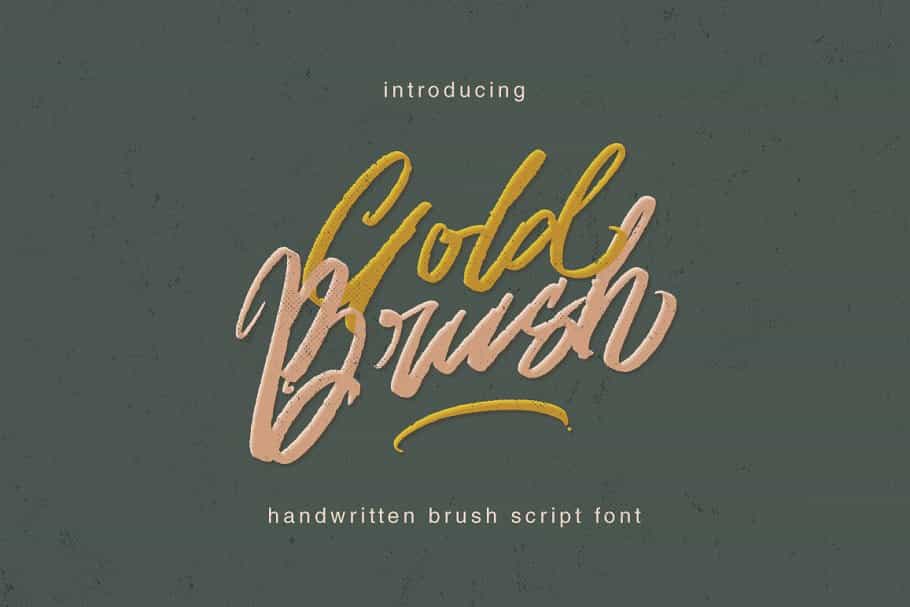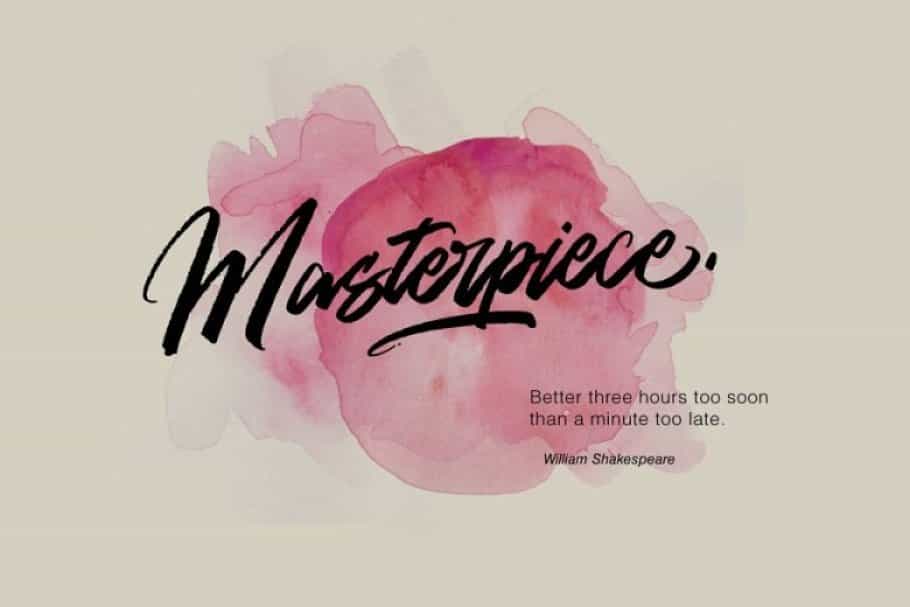
Introducing Gold Font. Gold is a hand brush with some extras. The handwriting style and the irregular yet still elegant look of this font will make you love to use it. Golden brush is ideal for branding projects, homeware designs, product packaging – or just as a stylish text overlay to any background image.